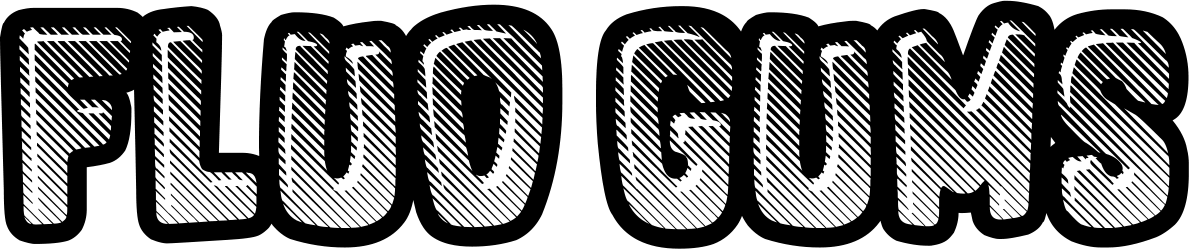
Fluo Gums Font
How’s your relationship with rather thick and bubbly cartoonish fonts? With Fluo Gums you get two-tone gradient characters, quite cool and unique. Your child-centric project will look much more fun and joyful, that’s for sure.